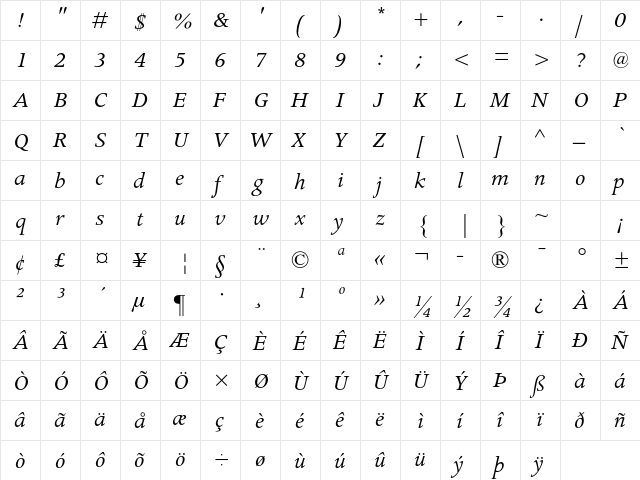
Apollo MT Std Italic
| Designer | Adrian Frutiger |
Design Context for Apollo MT Std Typeface
Apollo MT Std takes a measured approach to typography — its balanced proportions and neutral character make it a reliable workhorse for both digital and print work. Its italic angle brings a sense of urgency and motion to the letterforms.
Pro Tip: Try Apollo MT Std for annotation and caption copy alongside an upright companion — the contrast in angle creates a dynamic but ordered typographic system.